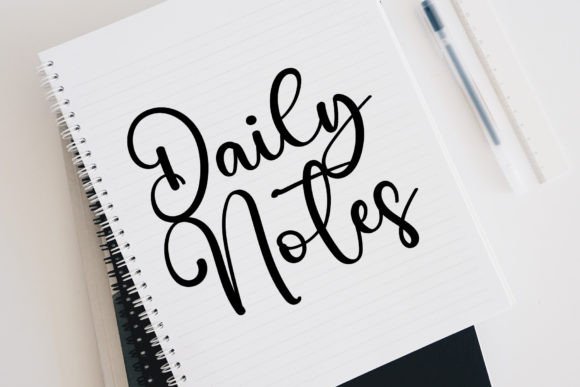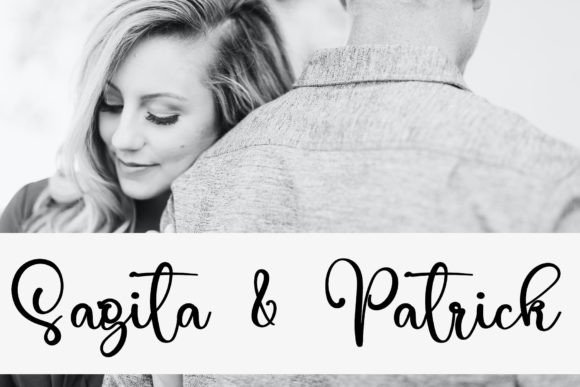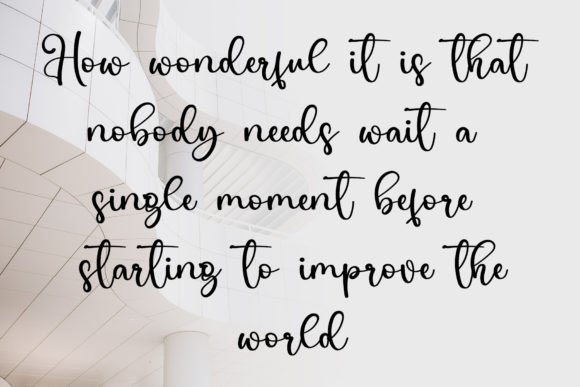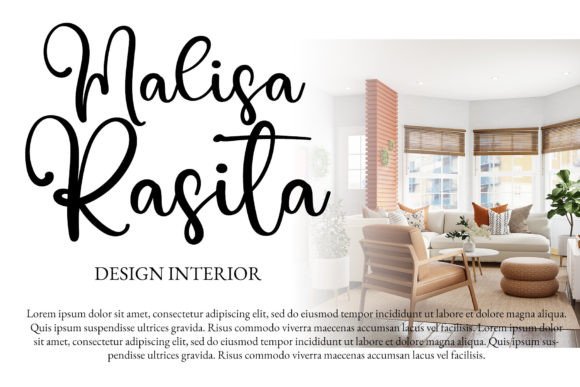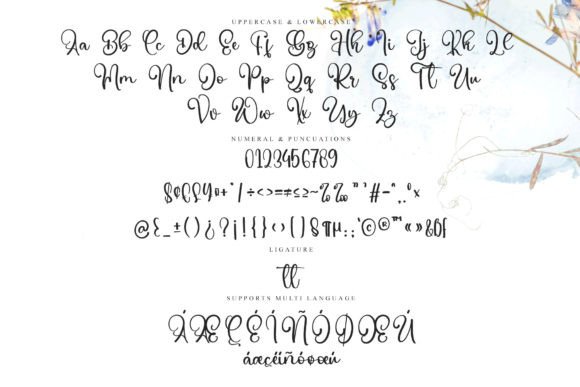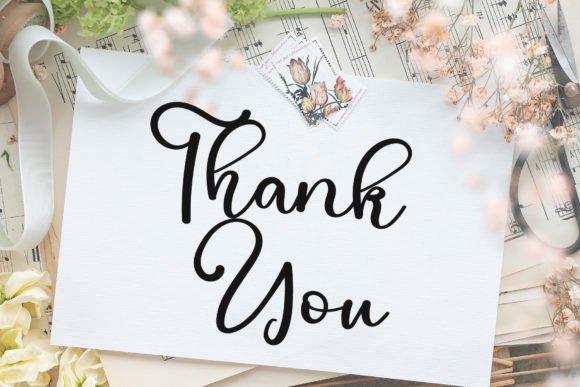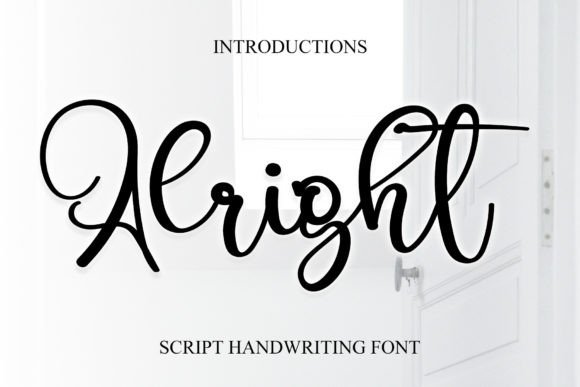
Introducing Alright Font: The Perfect Handwritten Style for Your Creative Projects
Are you looking for a font that can add a touch of happiness and personality to your designs? Look no further than Alright Font, a stylish and modern handwritten font that’s perfect for a wide range of applications. From greeting cards to headlines, branding, and packaging, Alright Font is the ideal choice for designers and crafters who want to create unique and eye-catching designs.
What Makes Alright Font So Special?
Alright Font is a beautifully crafted handwritten font that’s designed to bring a smile to your face. Its stylish and modern look makes it perfect for a variety of creative projects, including:
• Greeting cards: Add a personal touch to your greeting cards with Alright Font’s unique and playful style.
• Headlines: Make your headlines stand out with Alright Font’s bold and eye-catching design.
• Branding: Use Alright Font to create a memorable brand identity that’s both stylish and modern.
• Packaging: Add a touch of personality to your packaging designs with Alright Font’s happy and upbeat style.
One of the best things about Alright Font is that it’s PUA (Private Use Area) encoded, which means you can access all of the amazing glyphs and ligatures with ease. This makes it easy to create unique and creative designs that stand out from the crowd.
With PUA encoding, you can:
• Access a wide range of glyphs and ligatures to add personality to your designs.
• Easily switch between different glyphs and ligatures to create a unique look.
• Create custom designs that reflect your brand’s personality and style.
Why Choose Alright Font?
There are many fonts to choose from, but Alright Font stands out from the rest. Here are just a few reasons why:
• Unique and playful style: Alright Font has a one-of-a-kind design that’s sure to grab attention.
• Highly versatile: Alright Font can be used for a wide range of creative projects, from greeting cards to branding and packaging.
• Easy to use: With PUA encoding, you can easily access all of the glyphs and ligatures you need to create amazing designs.
• Modern and stylish: Alright Font has a modern and stylish look that’s perfect for designers and crafters who want to create unique and eye-catching designs.
Tips for Using Alright Font
Here are a few tips for getting the most out of Alright Font:
• Experiment with different glyphs and ligatures: With PUA encoding, you have access to a wide range of glyphs and ligatures. Experiment with different combinations to create a unique look.
• Use it for headlines and titles: Alright Font is perfect for headlines and titles, where its bold and eye-catching design can really shine.
• Add a personal touch: Use Alright Font to add a personal touch to your designs, whether it’s a greeting card or a packaging design.
Alright Font is a stylish and modern handwritten font that’s perfect for designers and crafters who want to add a touch of happiness and personality to their designs. With its PUA encoding and wide range of glyphs and ligatures, Alright Font is the perfect choice for a wide range of creative projects. So why wait? Download Alright Font today and start creating unique and eye-catching designs that stand out from the crowd!